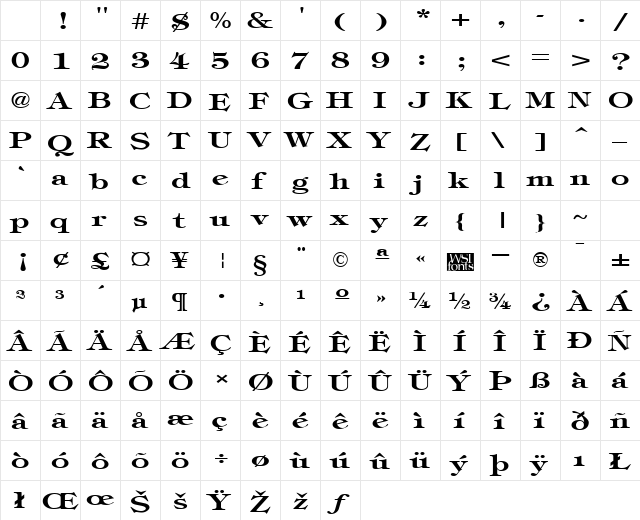
Complete TimbrelBroad Bold glyph index. Displaying only characters natively supported by TimbrelBroad Bold font.
TimbrelBroad is a composed and adaptable typeface that performs quietly and consistently across a wide range of design contexts. Its bold stroke weight gives it real presence on the page.